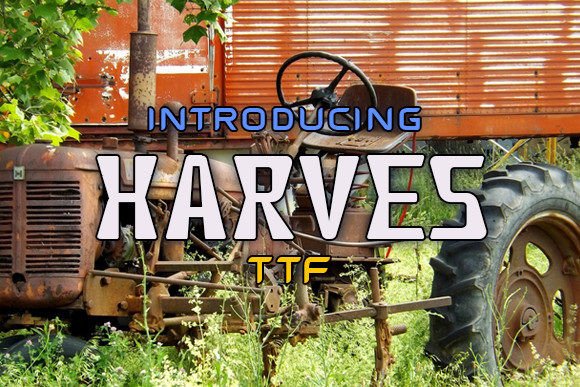
Introducing Harves Font - The Perfect Essence of Elegance and Sophistication for your Wedding Rings
In the realm of typography, Harves Font stands as a dazzling display font, meticulously crafted to elevate the visual allure of your wedding rings. Its captivating presence exudes an aura of timeless beauty, adding an unforgettable touch to this symbol of your everlasting commitment.
With Harves Font, you'll embark on a journey of artistic expression, where your wedding rings transcend mere accessories into breathtaking masterpieces. Its delicate curves and elegant lines intertwine harmoniously, evoking a sense of romance and everlasting love.
As you glide through the Harves Font collection, prepare to be mesmerized by an array of styles that cater to your every desire. From classic and traditional to contemporary and whimsical, each font is a testament to the boundless creativity that awaits you.
Unleash your inner artist and let your imagination soar as you explore the endless possibilities of Harves Font. Its versatility knows no bounds, allowing you to craft stunning designs for posters, flyers, banners, and even personalized wedding invitations.
Step into a world of sophistication and enchantment, where Harves Font takes center stage, transforming your wedding rings into symbols of eternal love and unwavering commitment. Let the beauty of this font elevate your designs, creating a lasting impression that will be cherished for generations to come.